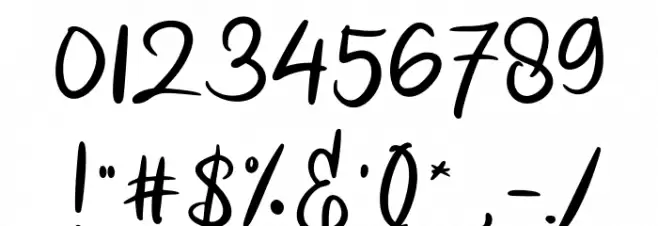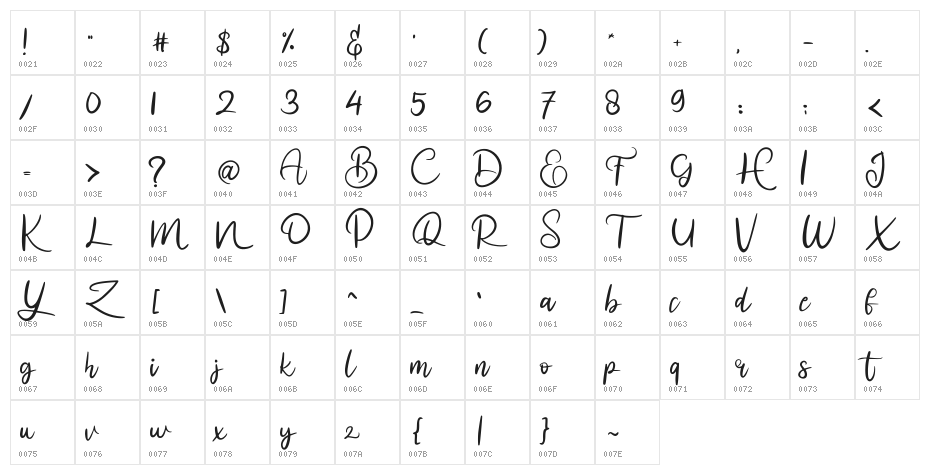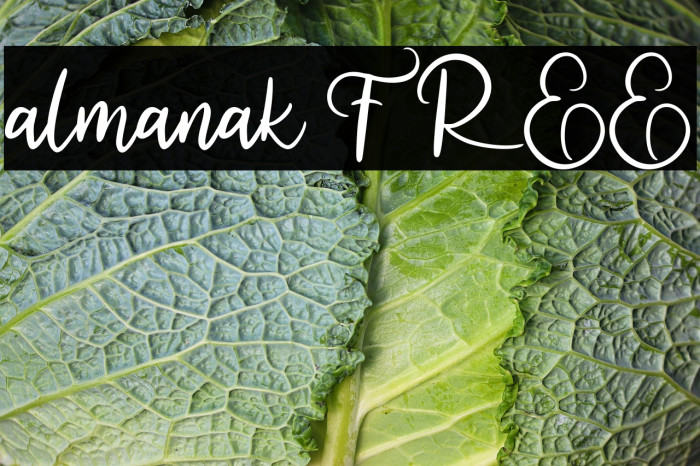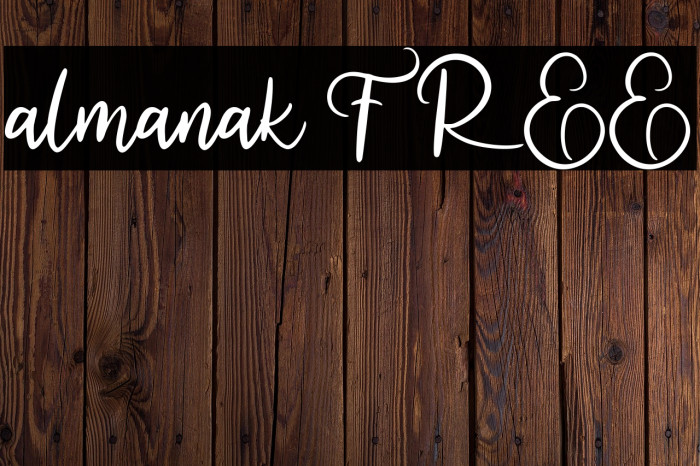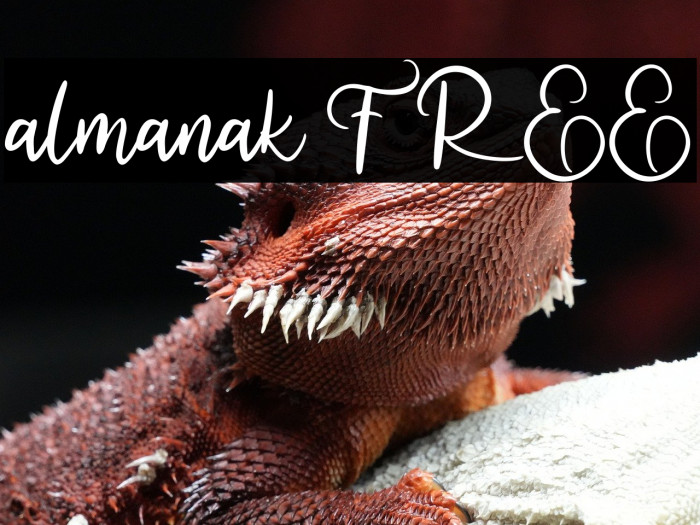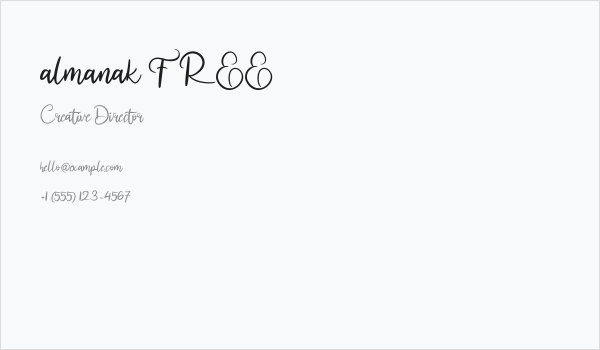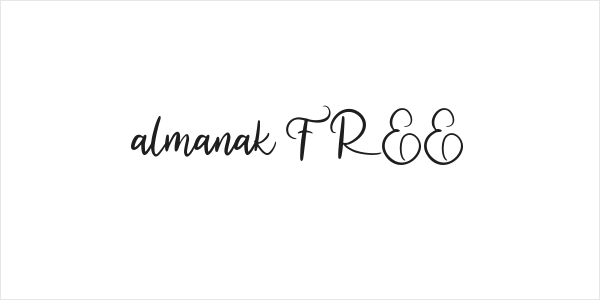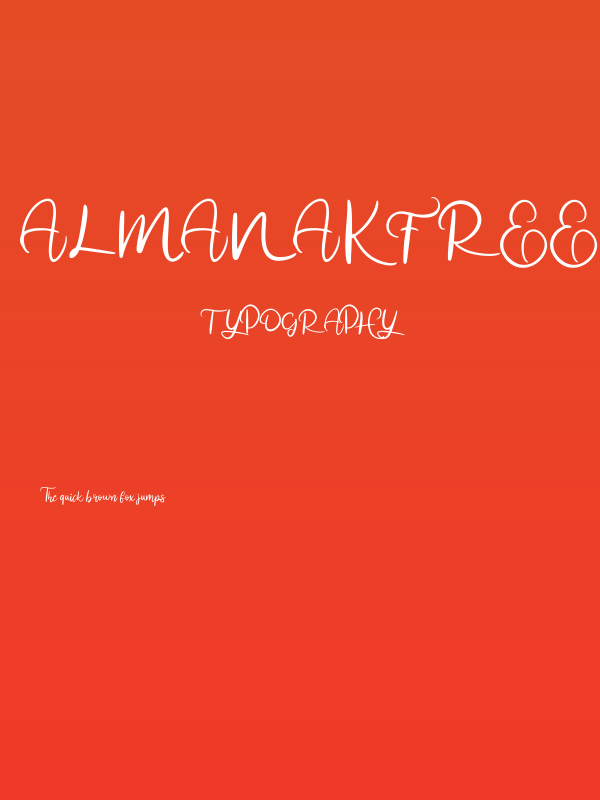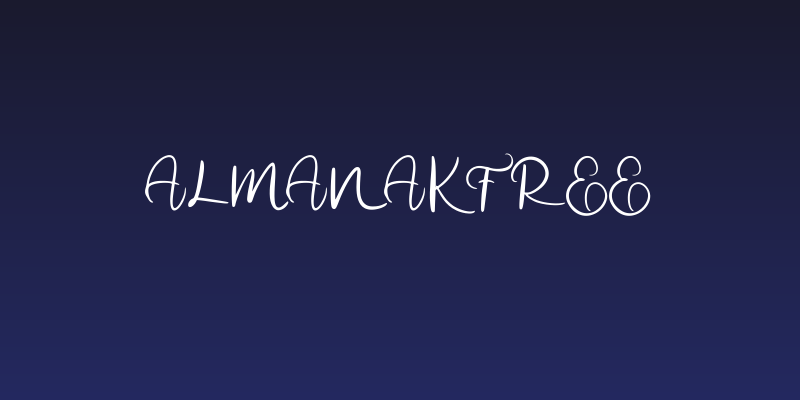
almanak FREE Font
almanak FREE Description
This font features a playful and elegant script style, characterized by its flowing and connected letterforms. The uppercase letters exhibit a graceful loop and curve, while the lowercase letters maintain a consistent rhythm with a slightly bolder appearance. The numerals are distinct and maintain the same flowing style, making them easily readable. Special characters are creatively integrated, adding to the font's versatility. The overall design is both whimsical and sophisticated, making it suitable for a variety of creative projects.
| Overall Style | Decorative |
| Use Case | Logos, Invitations, Decorative text |
| Proposed Projects | Ideal for wedding invitations, greeting cards, branding, and logo design. |